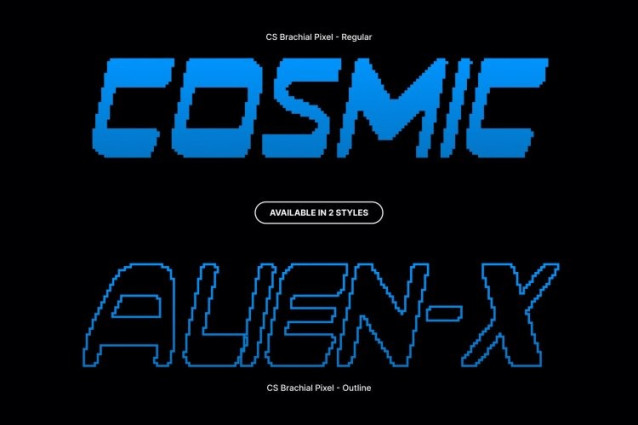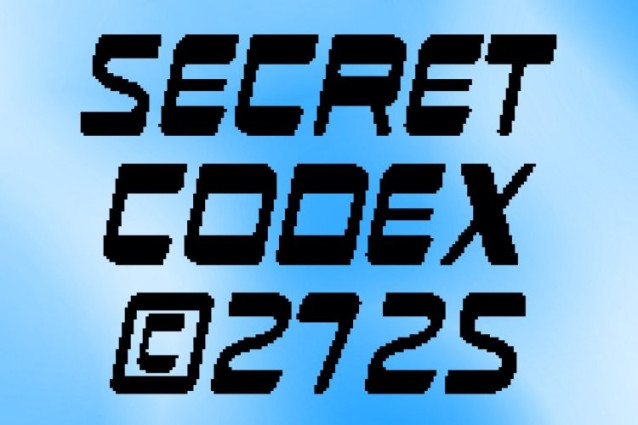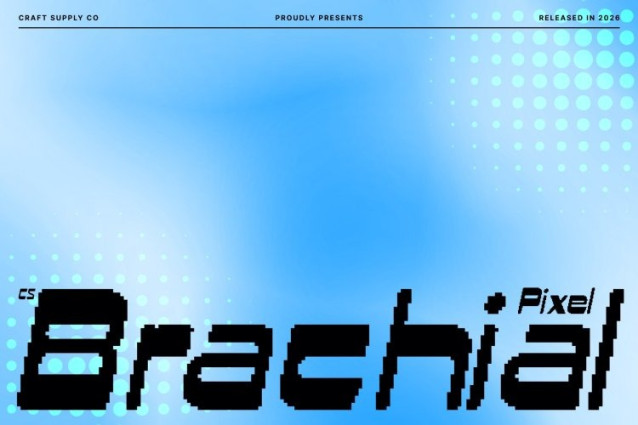
CS Brachial Pixel Font
CS Brachial Pixel Font This is an edgy sans serif font reimagined in a bold pixel style, channeling high-energy techno and futuristic aesthetics. Built with reverse contrast and sharp geometric pixel forms, this font delivers a striking digital impact that feels cutting-edge, modern, and unapologetically bold. Every letter is carefully constructed to balance mechanical precision with strong visual personality.
Dynamic Pixel Shapes with Futuristic Appeal
The distinctive reverse contrast is translated into rigid pixel structures, flipping traditional typographic expectations into something daring and forward-thinking. Sharp angles, compact proportions, and blocky construction create a sense of motion and rhythm, perfectly suited for designs inspired by technology, cyber culture, and digital innovation.
Perfect for Branding and High-Impact Digital Statements
Designed to stand out, this font excels in logos, branding systems, posters, and experimental layouts. Its pixel-based techno look ensures strong visibility across screens and print, making it ideal for tech brands, music visuals, gaming projects, and creative studios seeking a powerful futuristic identity.
Bold, Modern, and Electrically Charged Pixel Typography
This font is more than a font it’s a visual attitude. Its techno structure, pixel execution, and experimental contrast radiate strength, confidence, and modern sophistication. Use it to inject bold futurism and digital intensity into your designs, creating visuals that feel sharp, daring, and unmistakably futuristic.